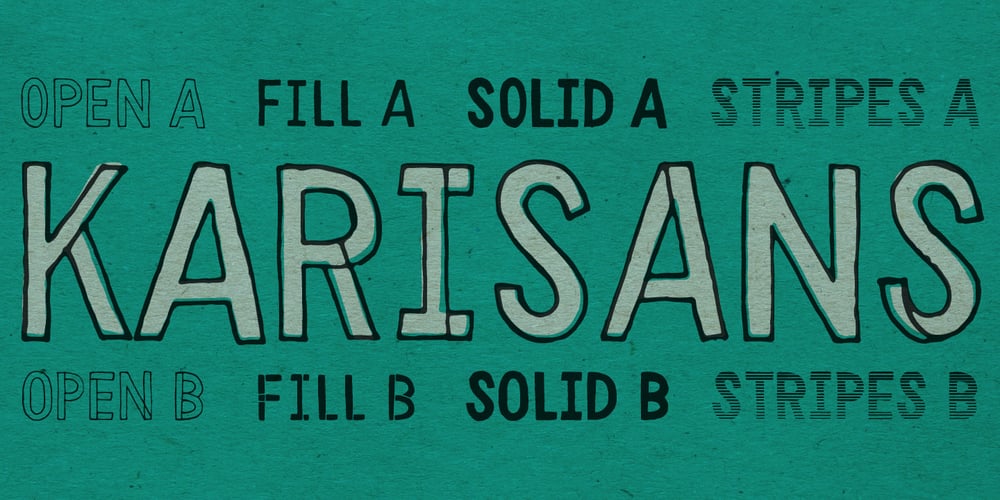
Karisans Font Family was designed by Michael Wallner and published by The Type Fetish. Karisans contains 8 styles and family package options. Karisans is a hand drawn, layerable sans serif font. By layering the various styles differently the user can achieve many different effects.